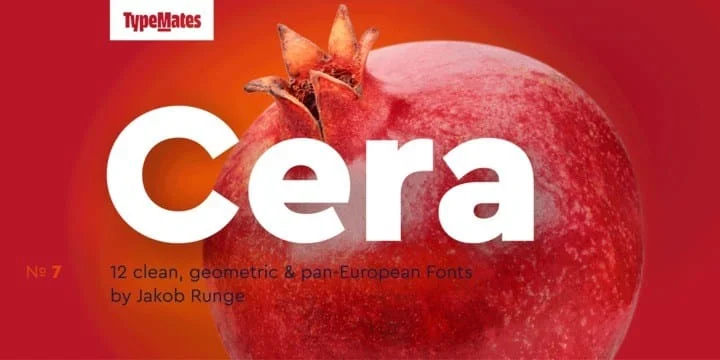
Cera Pro Font is perfect for modern branding, tech startups, corporate identities, mobile app interfaces, web design, editorial layouts, professional presentations, minimalist logos, clean product packaging, business communications, digital marketing materials, and any design project requiring a contemporary geometric sans-serif typeface with exceptional versatility.
What makes Cera Pro Font exciting is its geometric precision combined with humanist warmth that creates the perfect balance between professionalism and approachability. The font's carefully designed letterforms offer outstanding readability across all sizes and mediums, making it ideal for brands seeking reliable typography that performs flawlessly in any context. Its modern character reflects current design trends while maintaining timeless appeal, ensuring long-term relevance and consistent visual excellence.
The Cera Pro Font family typically includes multiple weights from thin to black, italic variations, uppercase and lowercase characters, numerals, extensive punctuation, and comprehensive language support for international projects.